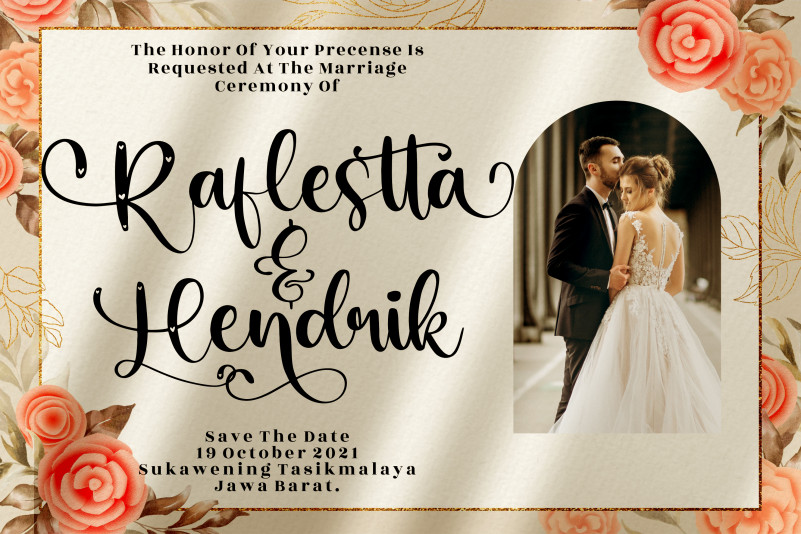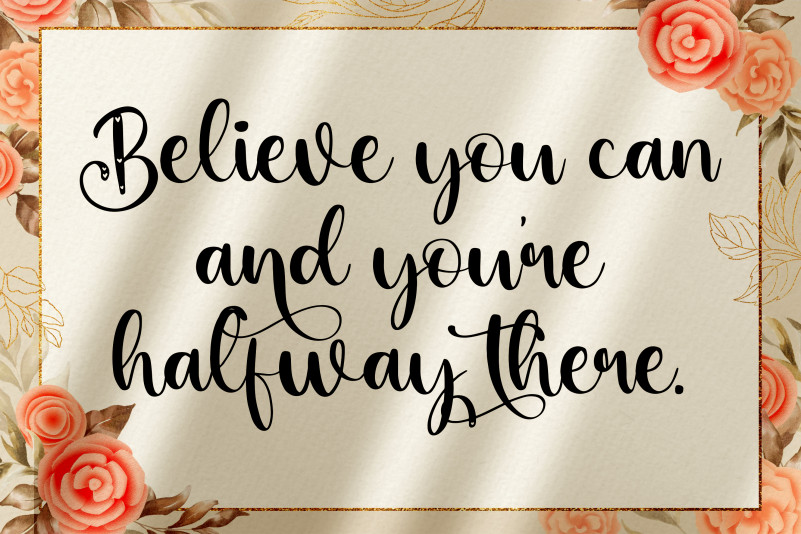
Better Lovely Font
Better Lovely Font is a chic and romantic script font. This font is PUA encoded which means you can access all glyphs and swashes with ease Fall for Better Lovely Font ravishing style and use it to create gorgeous wedding invitations, beautiful stationary art, eye-catching social media posts, and much more!